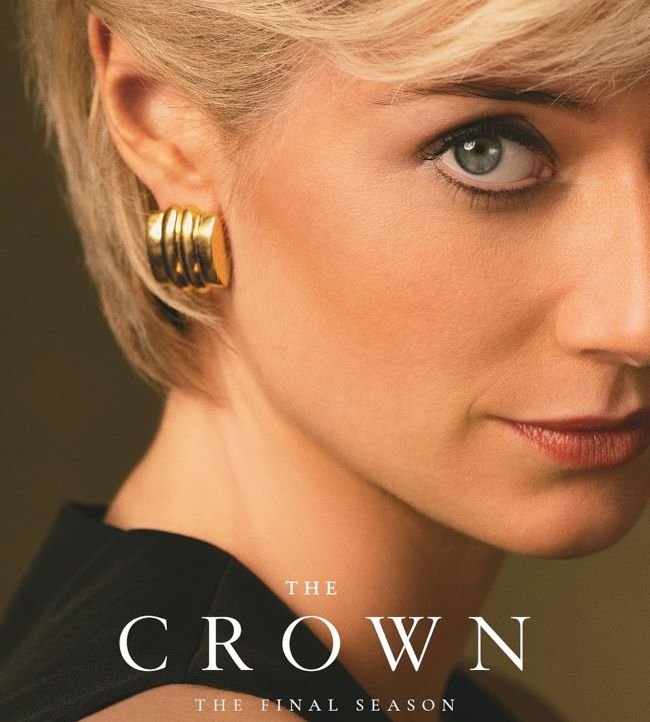
The Crown Font
The Crown Font is a refined classic serif fontSabon Roman in the original logo — used across Netflix’s Emmy-winning historical drama chronicling the reign of Queen Elizabeth II from her marriage in the late 1940s through the tumultuous decades that followed, tracing how personal duty, political pressure, and the demands of constitutional monarchy shaped one of the most consequential lives of the twentieth century.
Its timeless, understated elegance communicates exactly what the show requires: authority that never shouts, dignity held under immense pressure, tradition as both shield and burden. Two free alternatives are available.